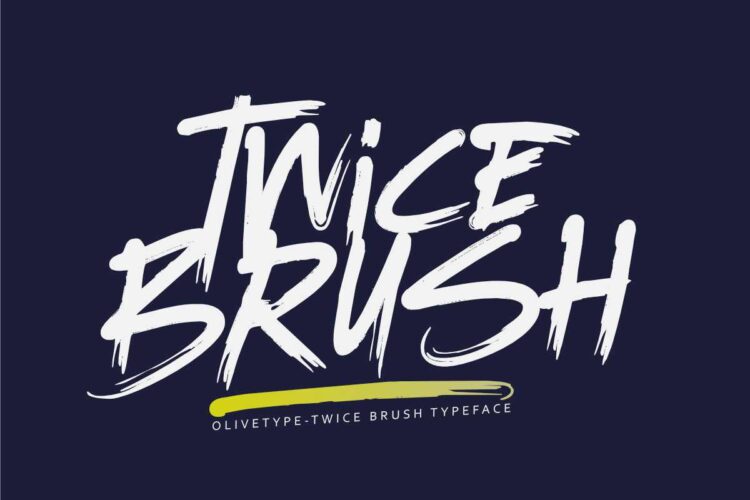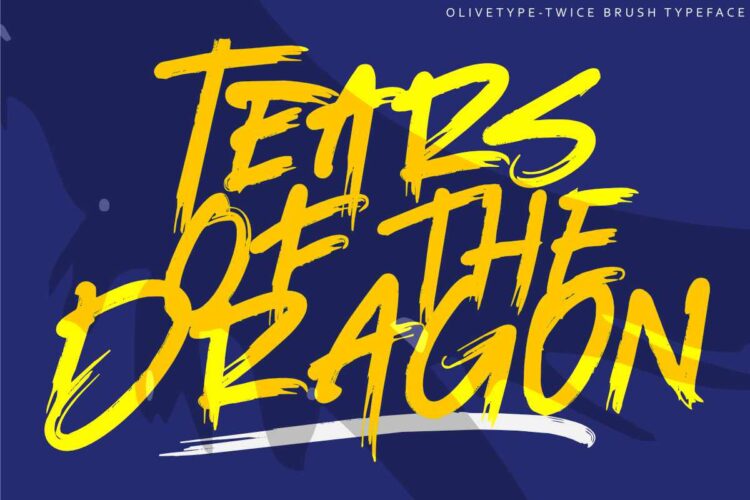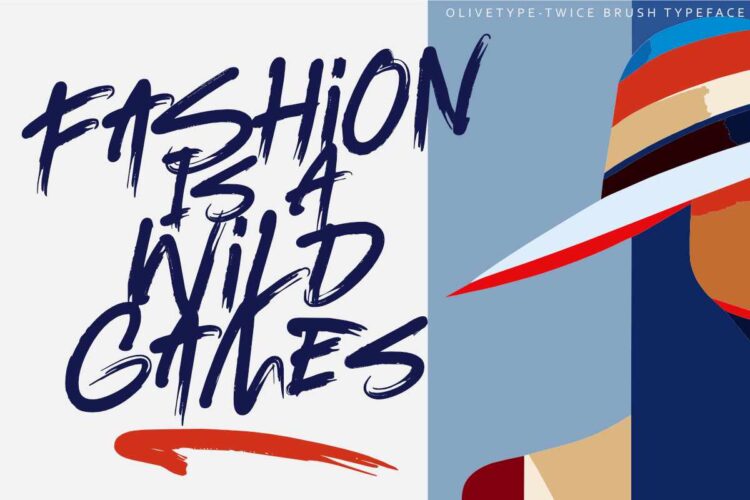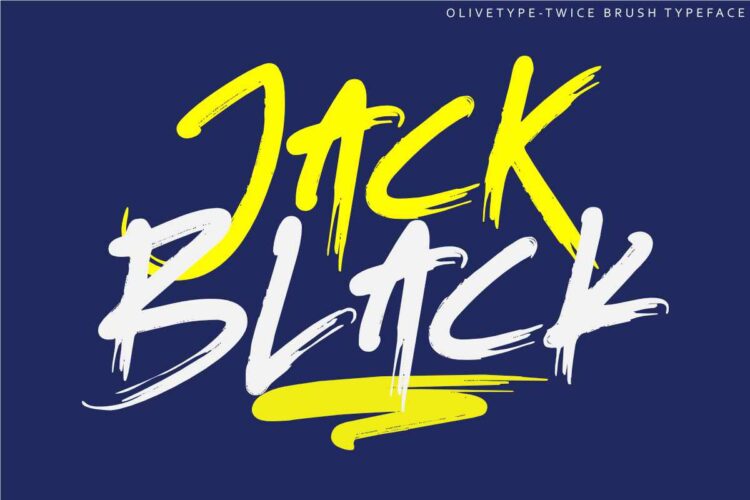
Don’t settle for the ordinary when you can embrace the extraordinary with Twice Brush! Stand out from the crowd and inject fun into your designs by incorporating this versatile brush typeface into your creative arsenal. Let loose your imagination as you explore the endless possibilities offered by the textures and vibrancy of Twice Brush – each character tells a story waiting to be told in a way only this font can convey. Upgrade your design game today with Twice Brush – where every stroke is an adventure!
Twice Brush features :